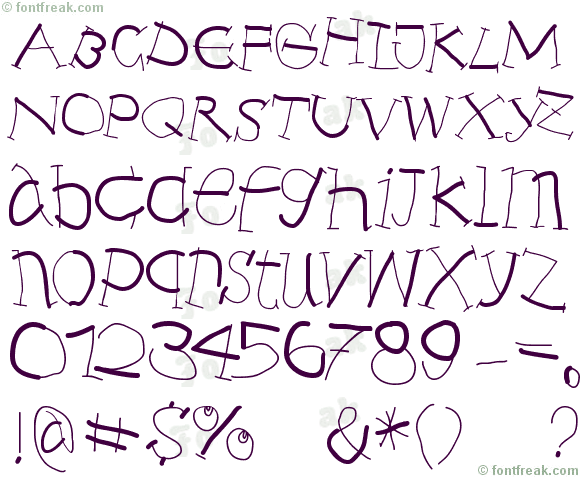
Anarchistica
The Anarchistica font by Manfred Klein is an eye-catching display typeface that embodies a unique blend of creativity and rebellion. As a decorative font, it features whimsical, hand-drawn characteristics that capture attention and ignite imagination. The strokes exhibit a playful inconsistency, with varying weights that add a dynamic flair to each letter. The overall design showcases an informal, almost chaotic arrangement, making it a perfect choice for projects that aim to convey a sense of freedom and individuality.
Anarchistica is particularly well-suited for a variety of creative applications. Its quirky aesthetic makes it ideal for event posters, especially those promoting music festivals or art shows, where an unconventional look is desired. The font can also enhance the visual appeal of restaurant menus, particularly for trendy eateries looking to establish a distinctive brand identity. Additionally, it works wonderfully for social media graphics aimed at capturing attention and engaging audiences. Wedding invitations that embrace a non-traditional theme can also benefit from the unique charm of Anarchistica, creating a memorable first impression.
The target audience for this font includes graphic designers, small business owners, and content creators who are seeking to infuse their work with personality and flair. Whether you're crafting promotional materials or personal projects, Anarchistica offers a fresh perspective that stands out in a sea of conventional typefaces.